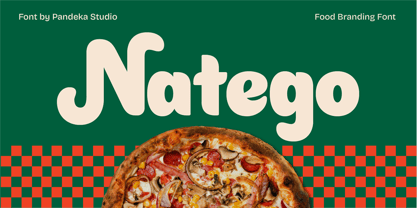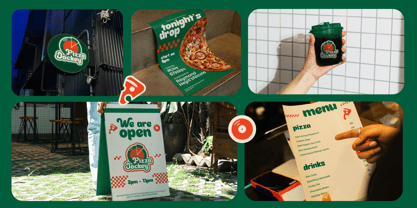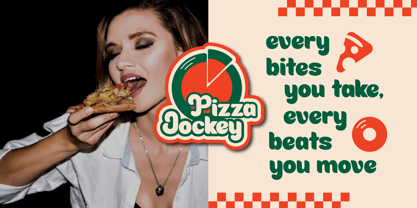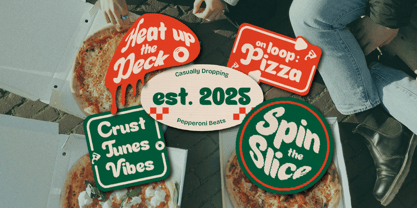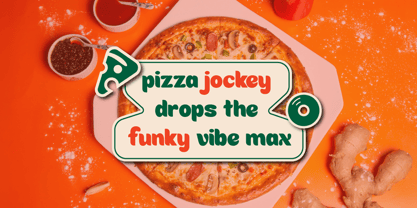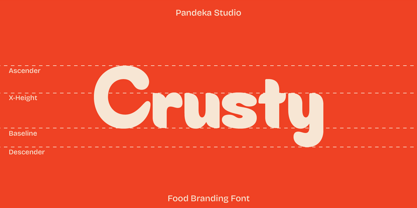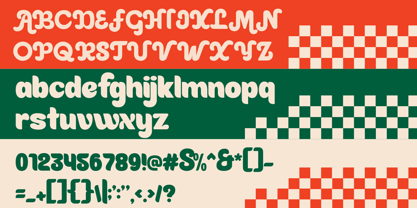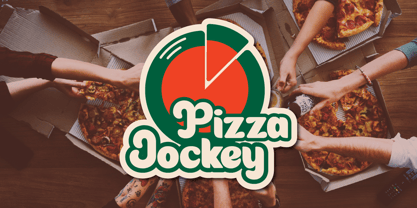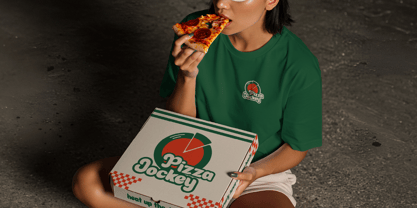
Natego
The Natego Font Family was designed by Sagara Nararya and published by Pandeka Studio. Natego contains 2 styles and family package options. More about this family
Natego is a playful and bold food branding font designed to bring fun, flavor, and personality into your designs. With its rounded shapes and friendly character, Natego creates an appetizing and eye-catching look that works perfectly for modern food brands and casual restaurant identities.
This font comes with 2 styles: Regular and Slant, and includes uppercase, lowercase, numbers, punctuation, and multilingual support. Its lively style makes it ideal for pizza brands, fast food packaging, café menus, snack products, restaurant logos, food promotions, and social media marketing.